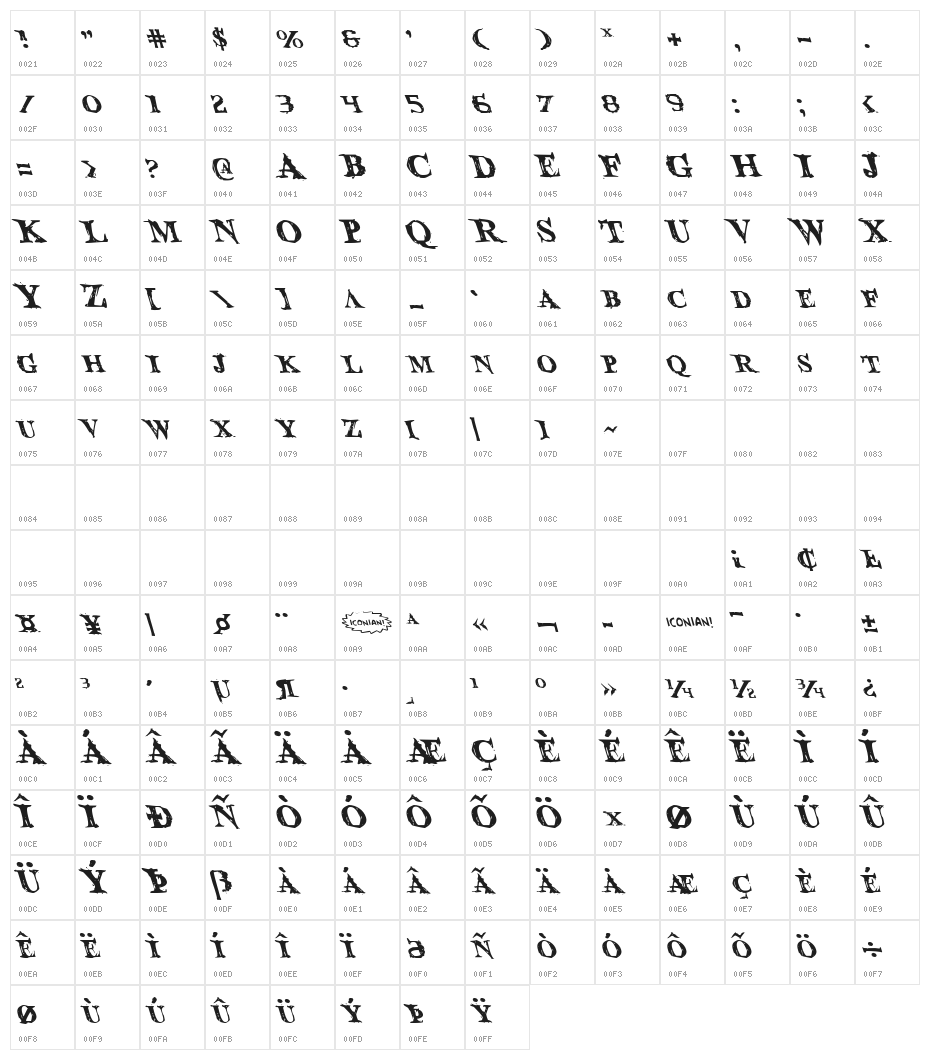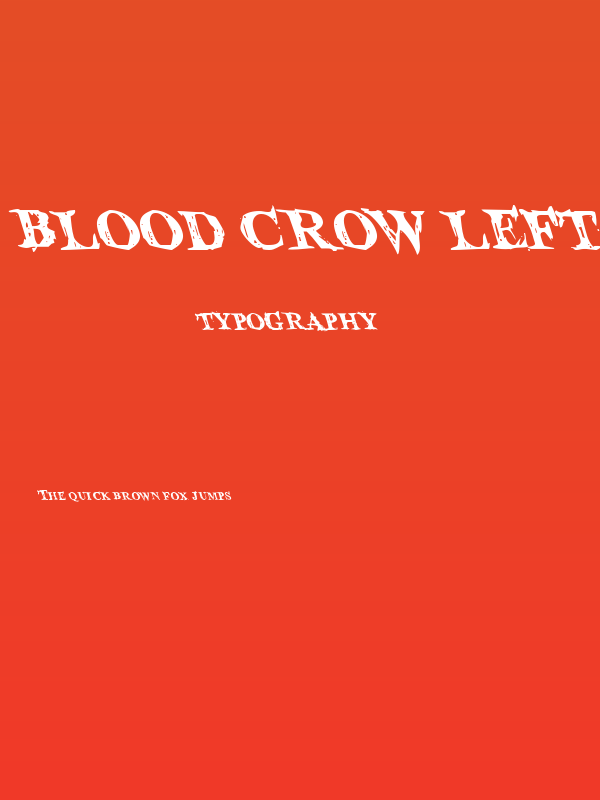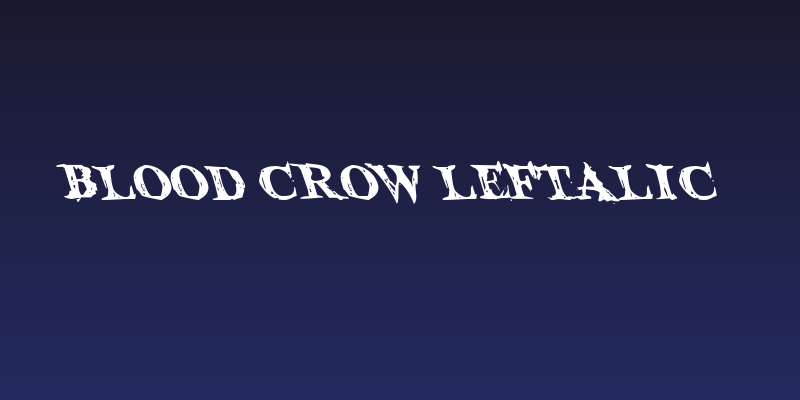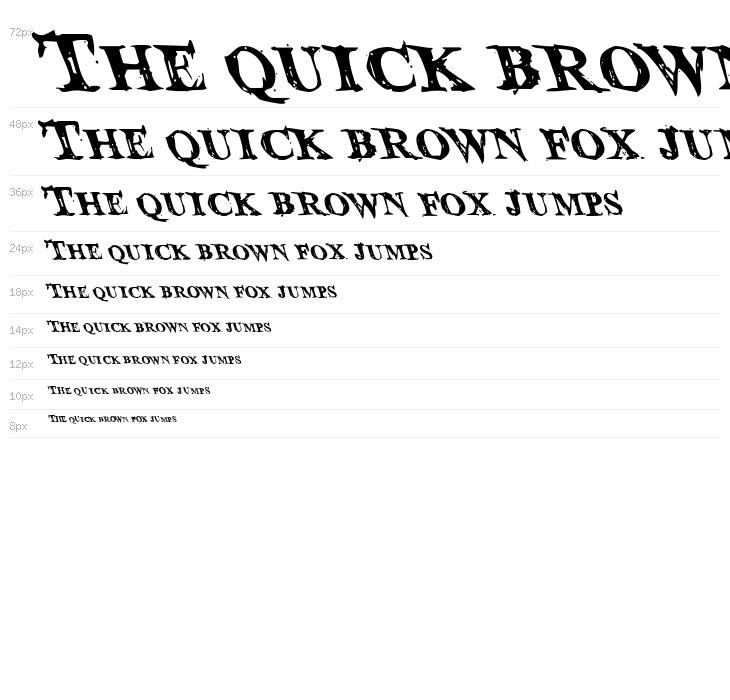
Blood Crow Leftalic Font
Blood Crow Leftalic Description
This font features a bold and edgy design with a distressed, grunge aesthetic. The characters are heavily stylized with rough, jagged edges and irregular shapes, giving it a raw and rebellious feel. The uppercase and lowercase letters maintain a consistent style, with each character appearing as if it has been scratched or eroded. The numbers and special characters follow the same design principles, ensuring a cohesive look across all glyphs. This font is ideal for projects that require a dramatic and impactful visual statement.
| Use Case | Logos, Posters, Headlines |
| Proposed Projects | Album covers, horror movie posters, edgy branding, streetwear designs. |